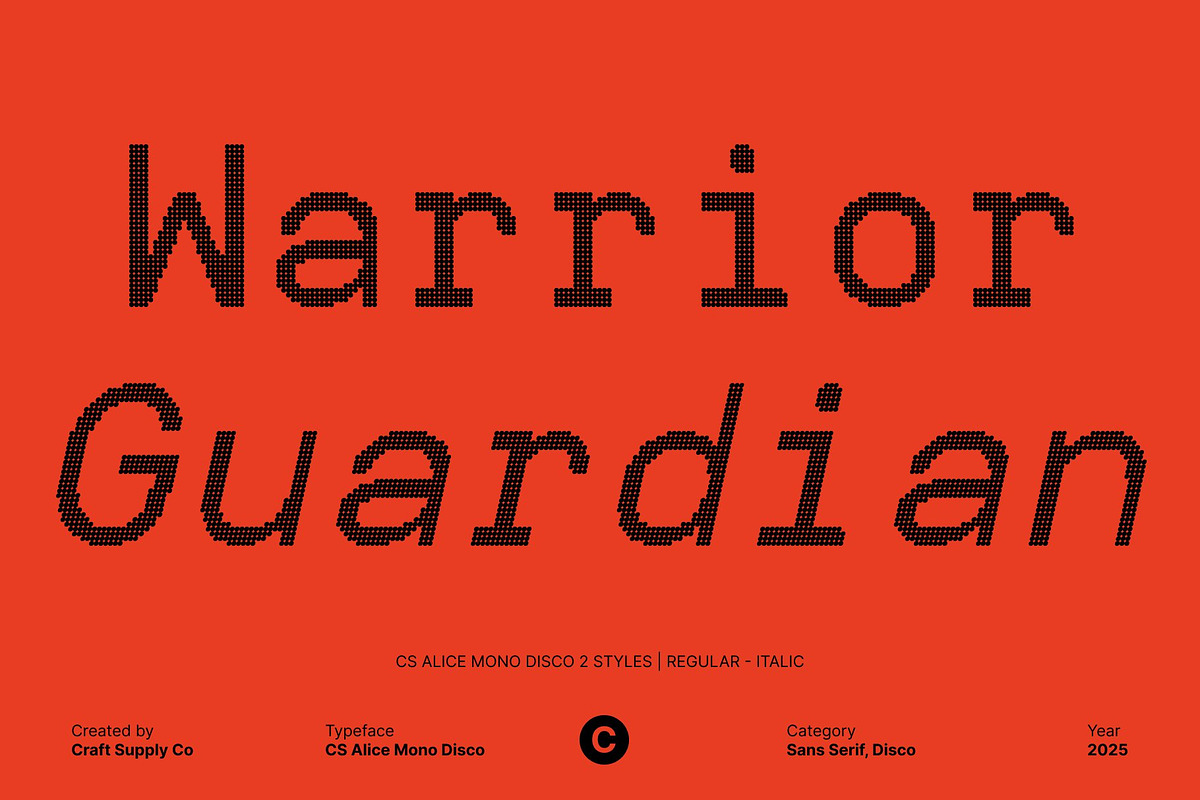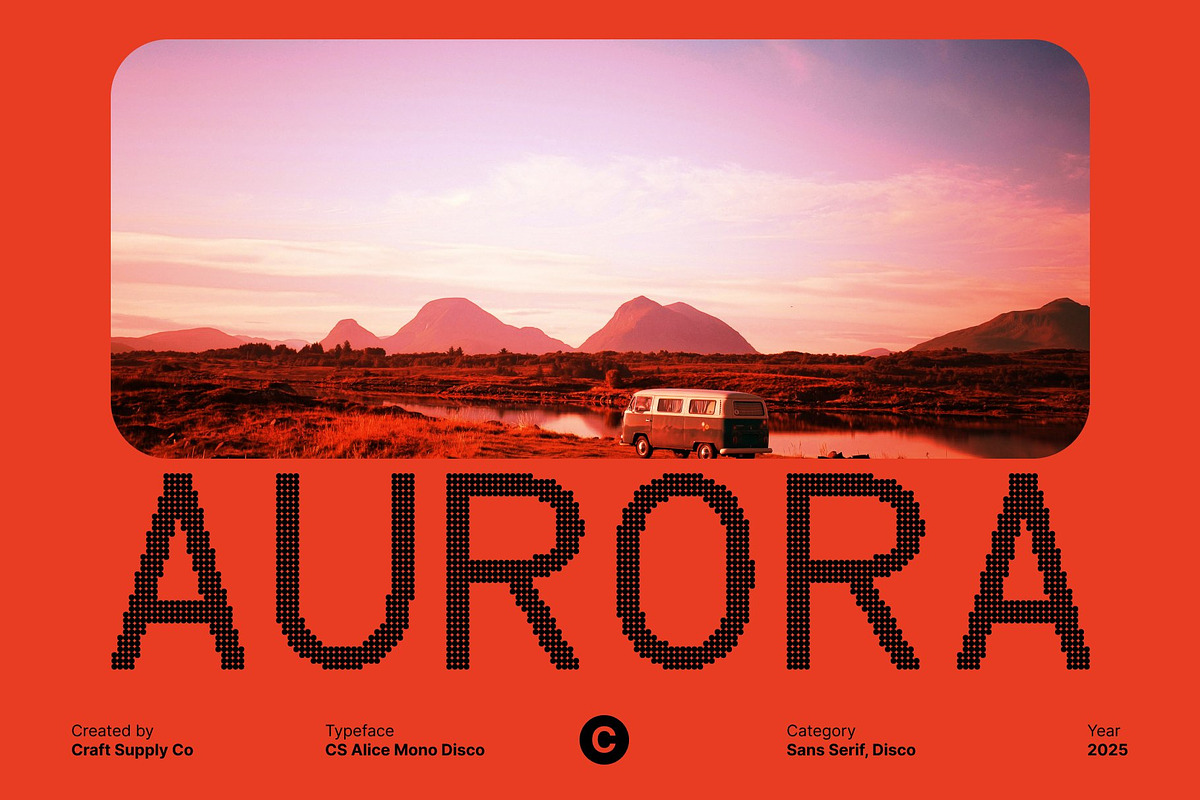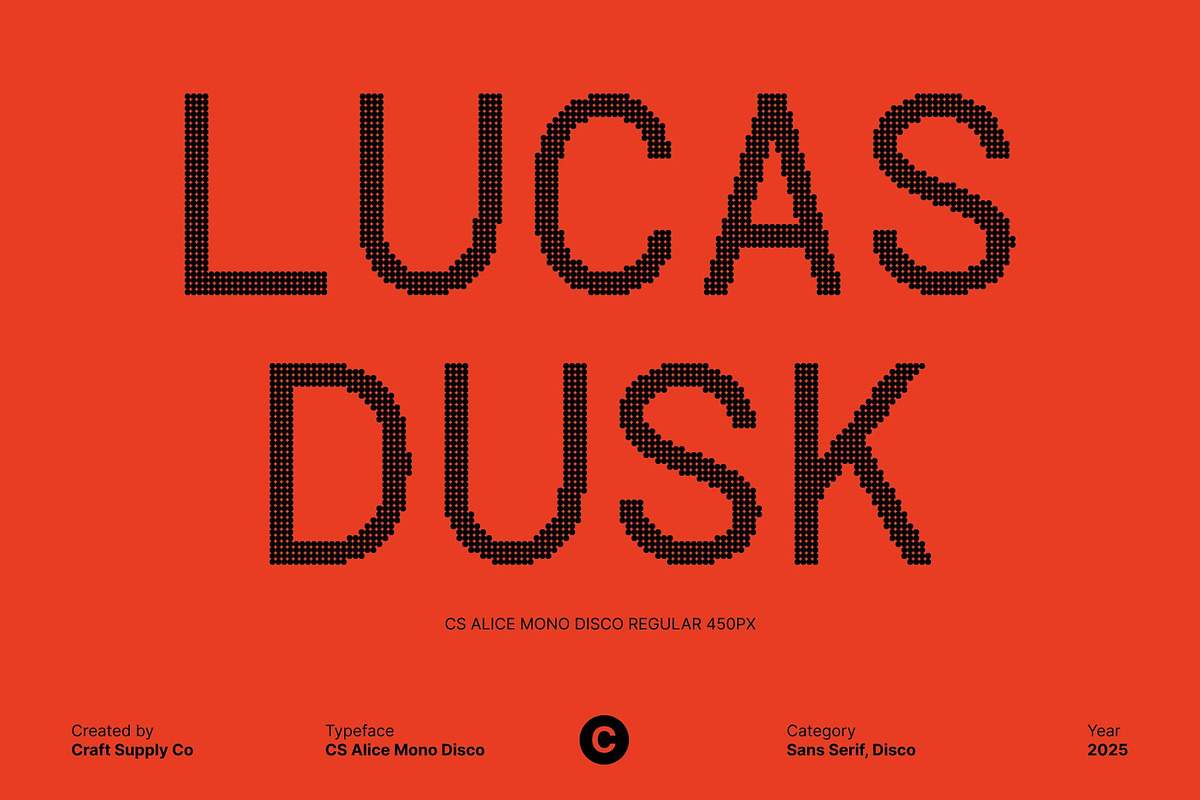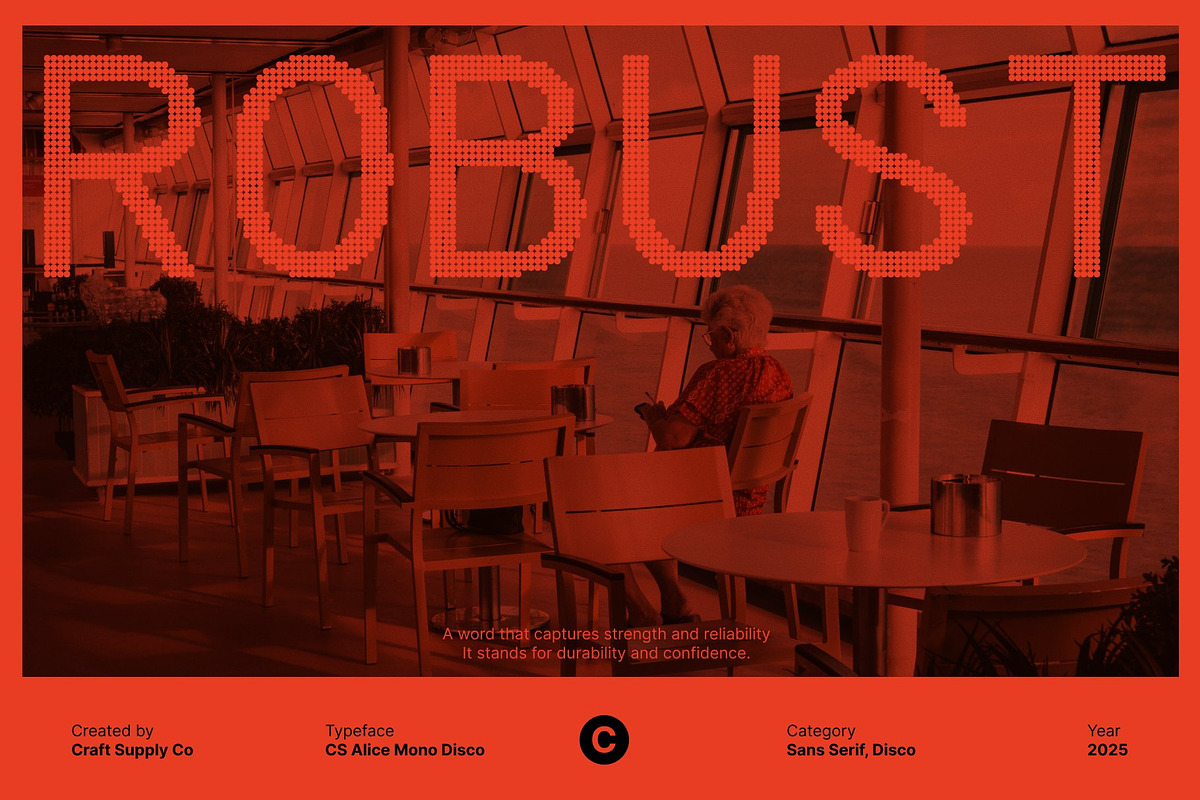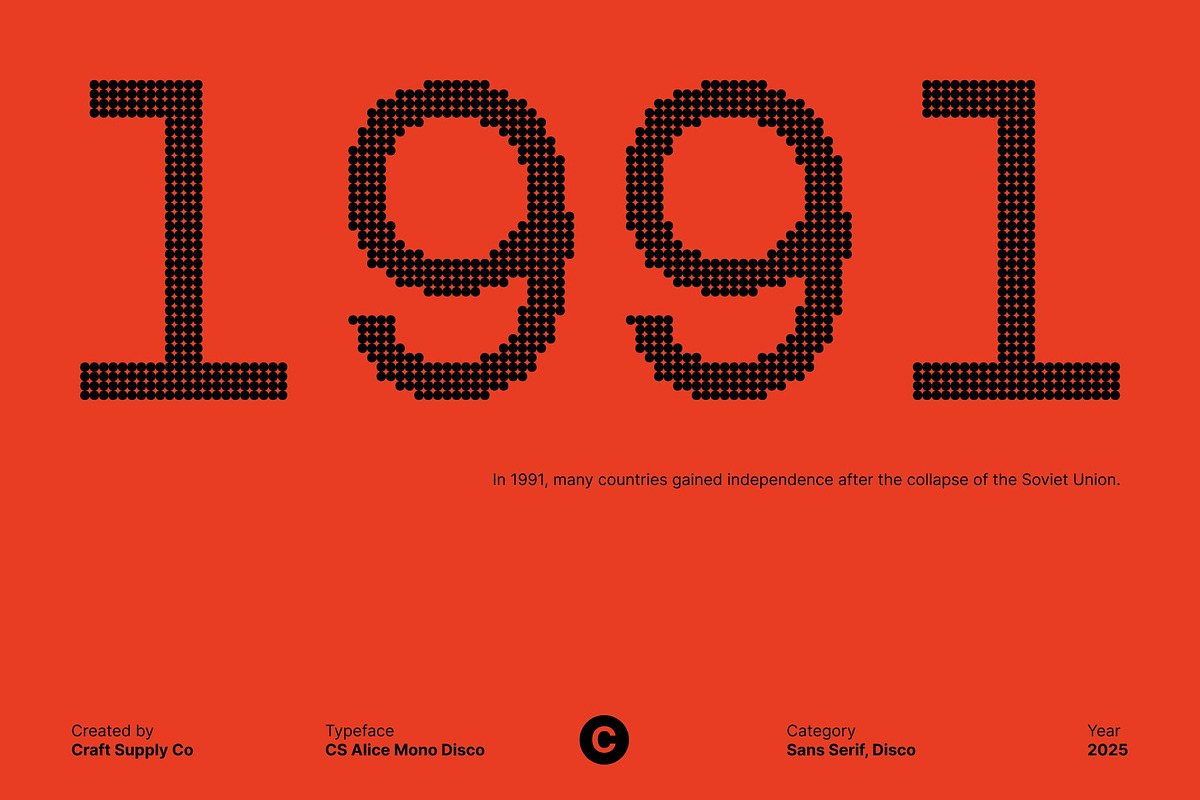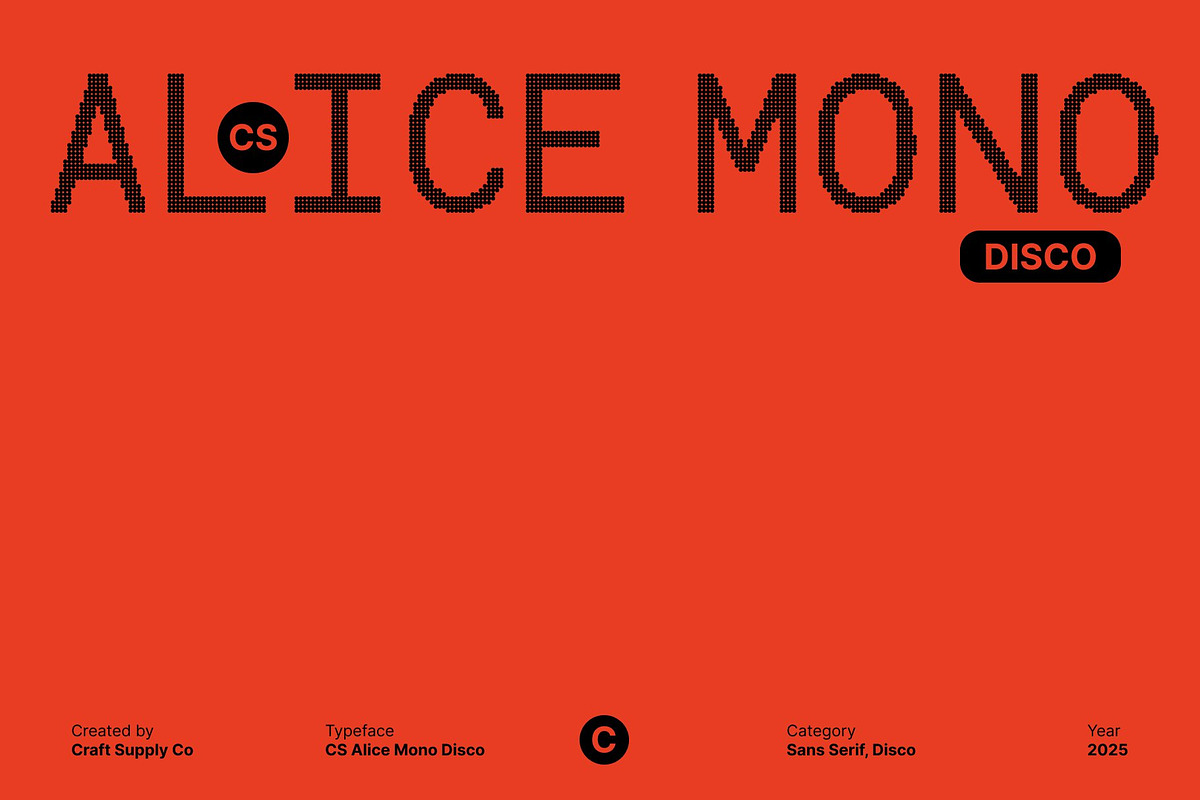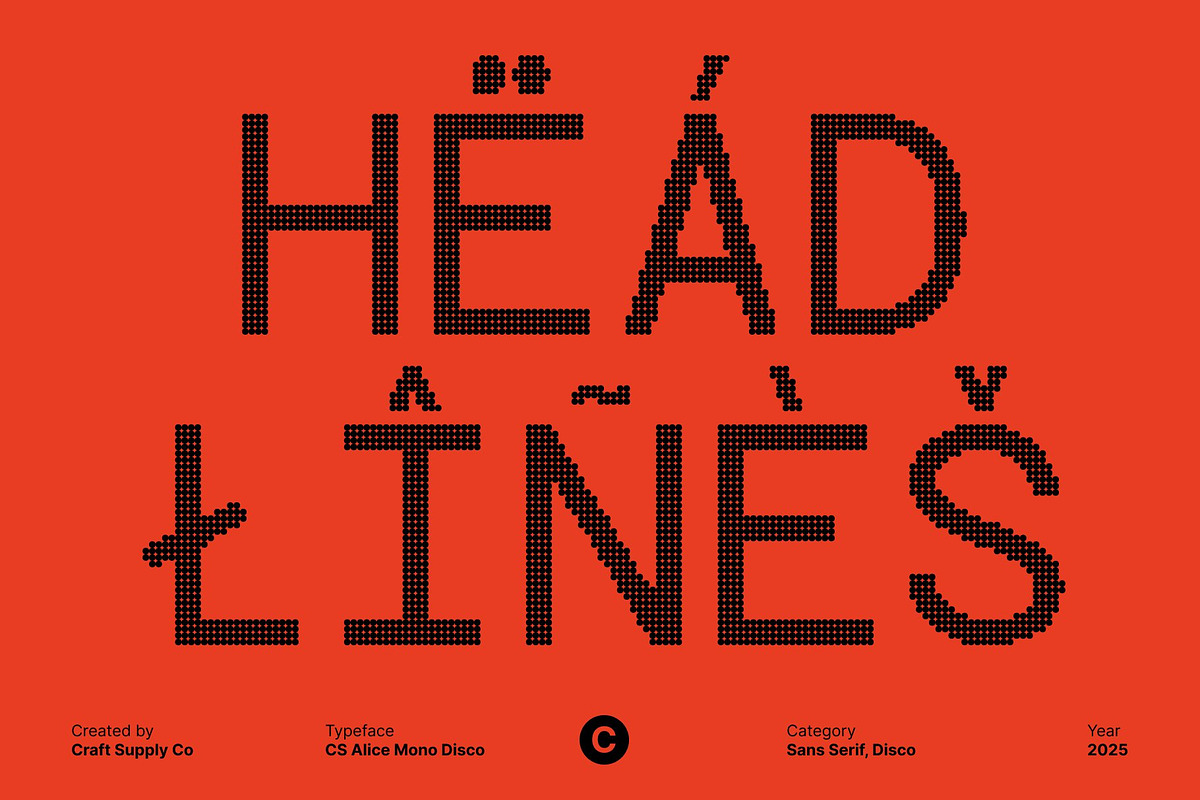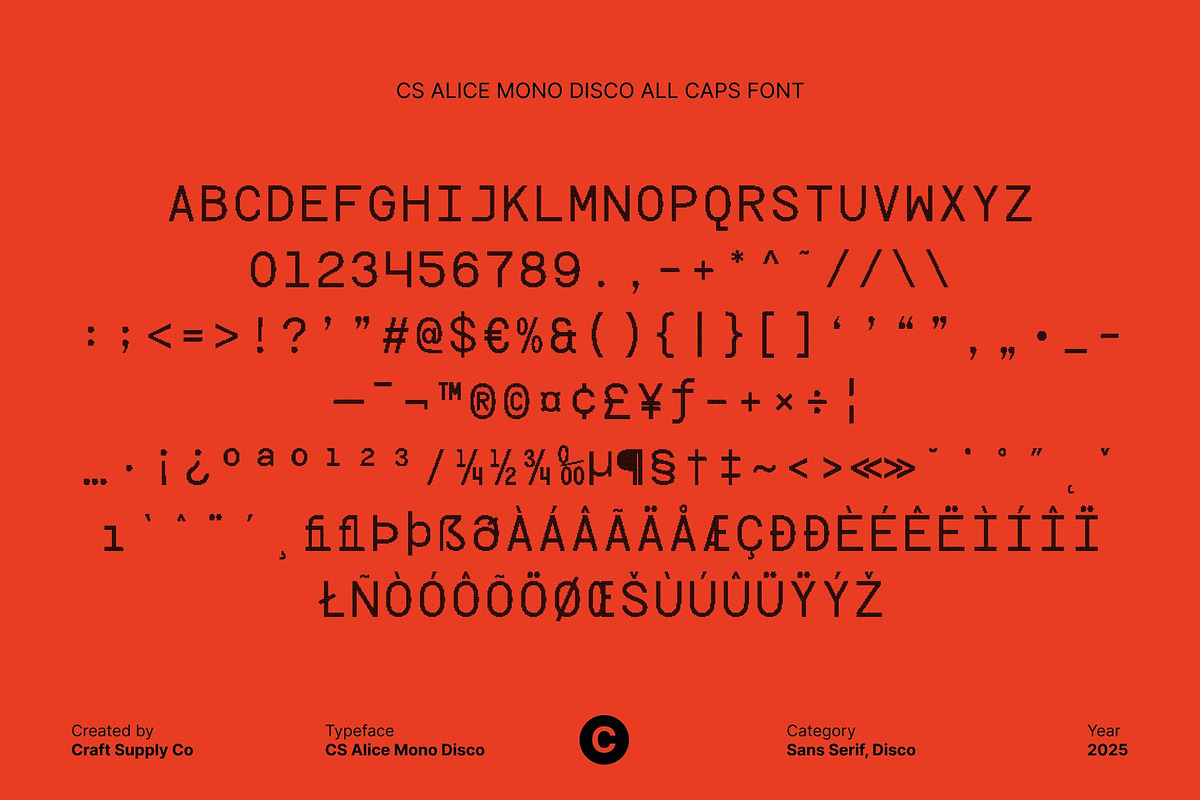
CS Alice Mono Disco
Precision Meets Sparkling Creativity
Modern Monospaced Sans Serif with Disco Style This is a modern monospaced sans serif font that combines geometric precision with radiant flair. Each character maintains consistent spacing and clean structure, making it perfect for designs that demand both order and originality.
Clean Geometry for Technical Clarity Built on a foundation of sharp lines and balanced proportions, this font delivers a professional and contemporary appearance. Its monospaced rhythm ensures readability and harmony, making it ideal for tech branding, code inspired visuals, and minimalist layouts.
Disco Effect for a Glamorous Edge The disco inspired finish adds a sparkly, dynamic glow to its structured form, infusing the design with energy and sophistication. This contrast between technical precision and lively shimmer creates a unique fusion of logic and creativity.
Versatile for Modern Design Projects Perfect for digital branding, modern posters, editorial layouts, and visual identities, this font adapts seamlessly to both corporate and artistic contexts. It communicates confidence while adding a touch of personality.